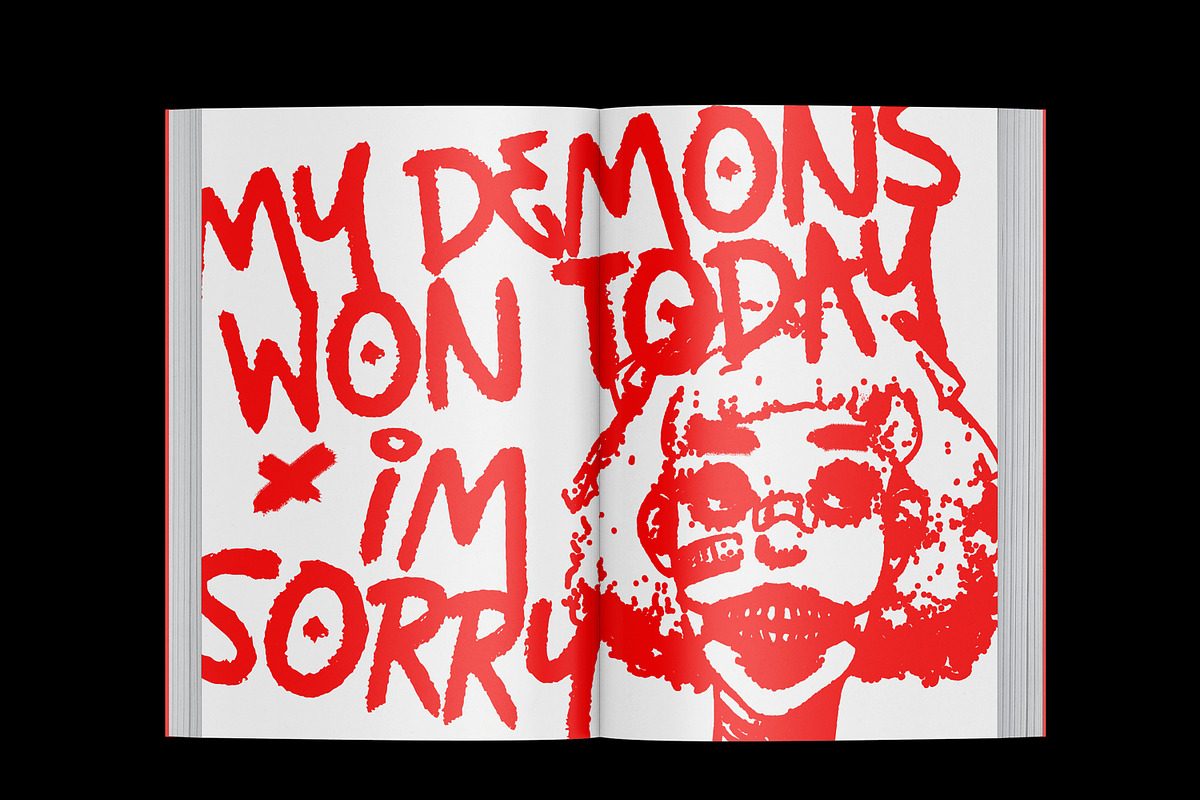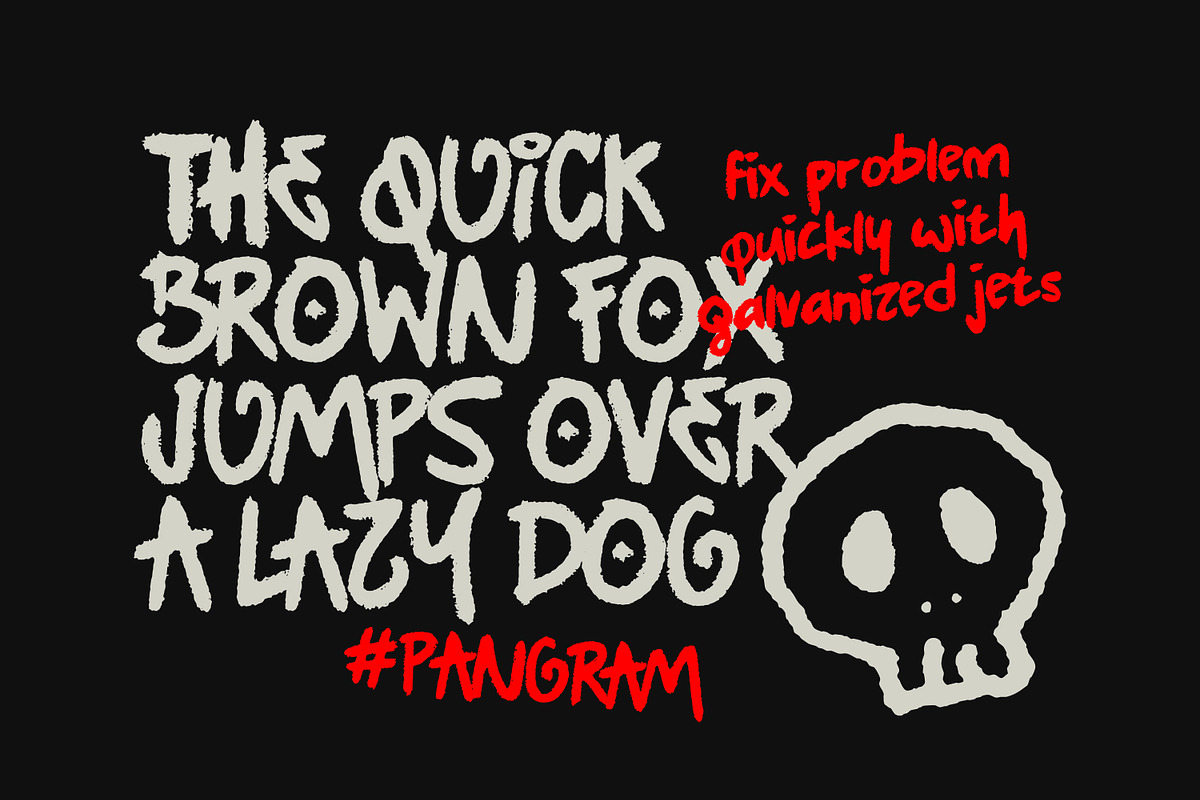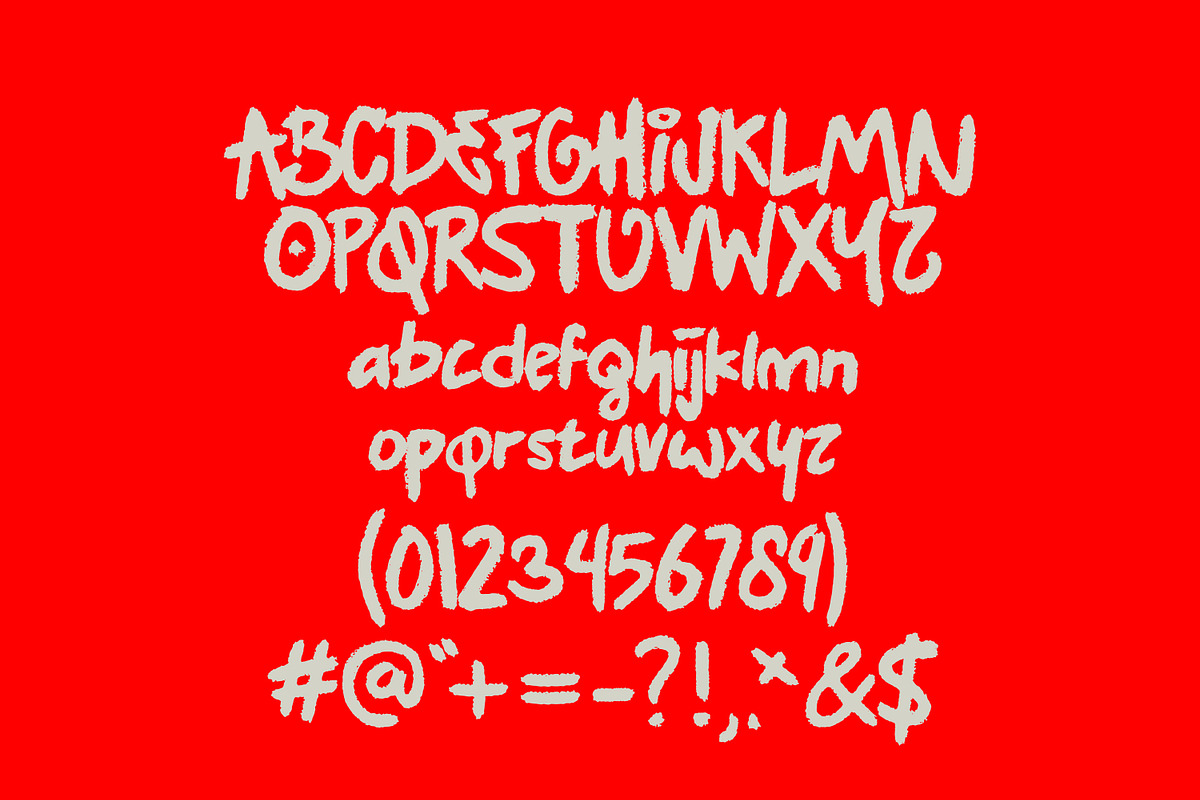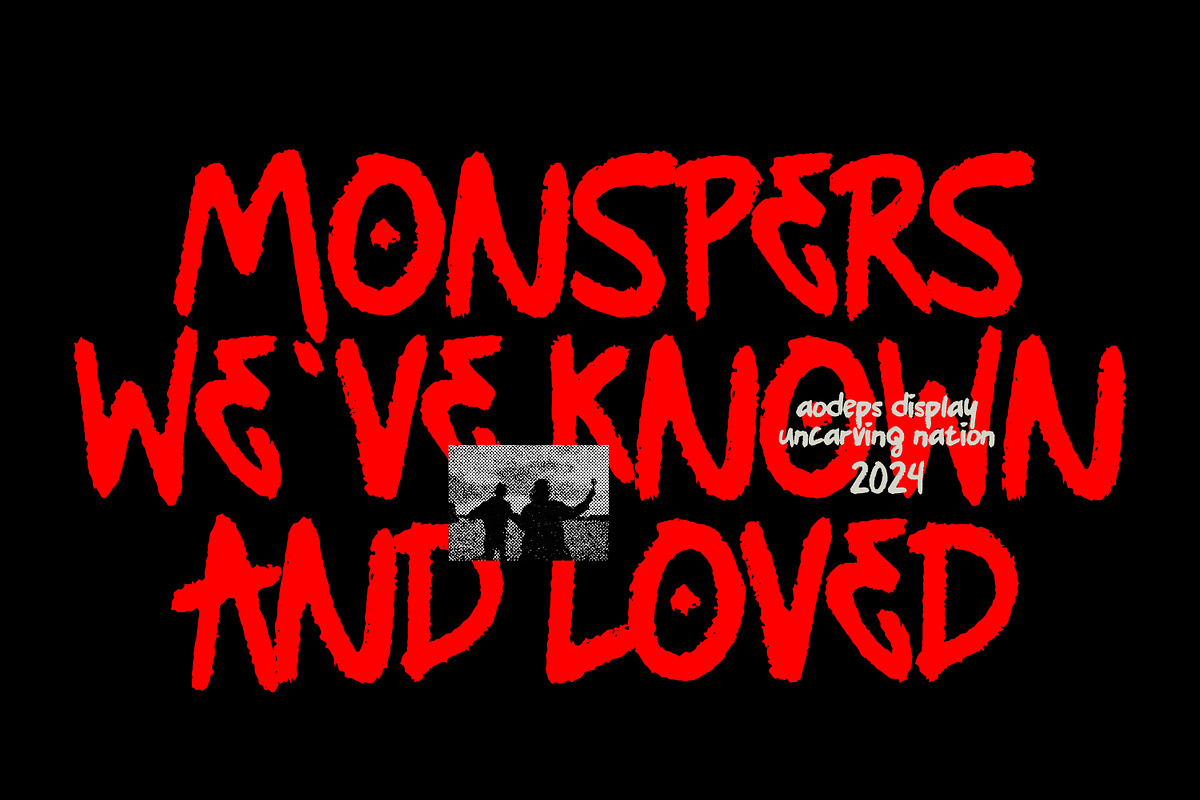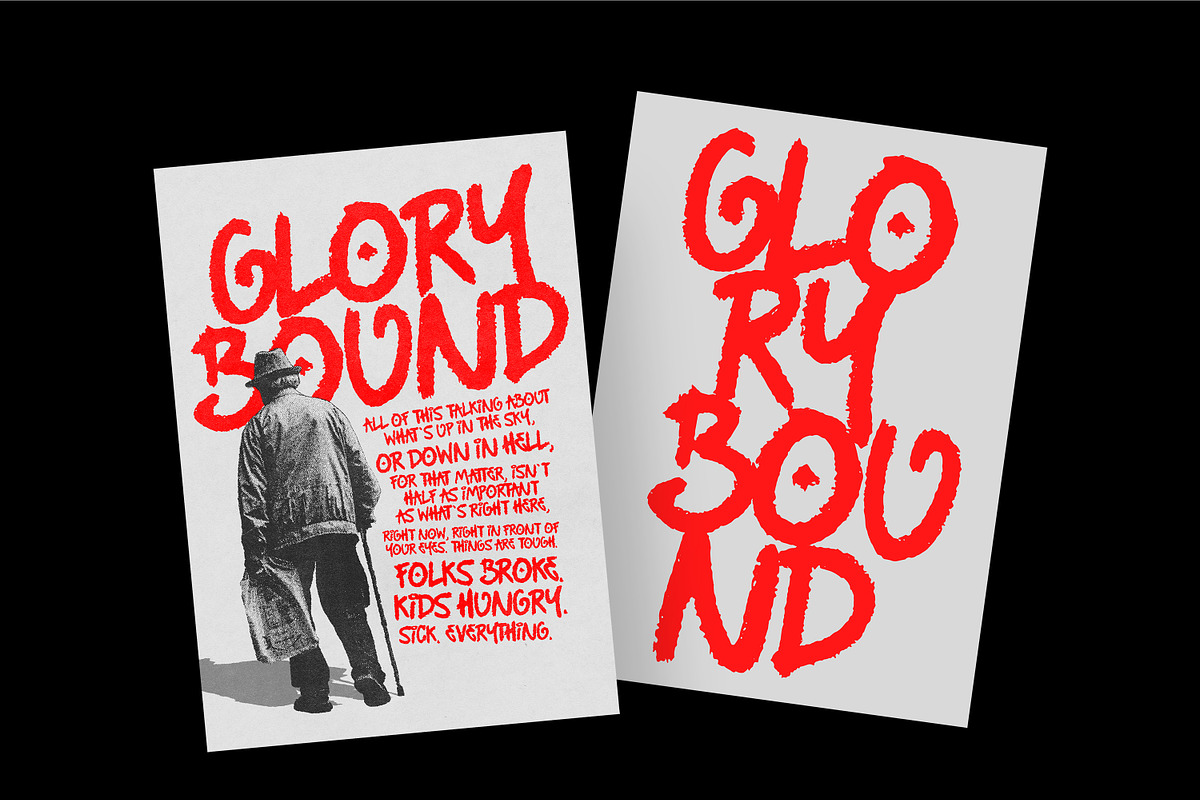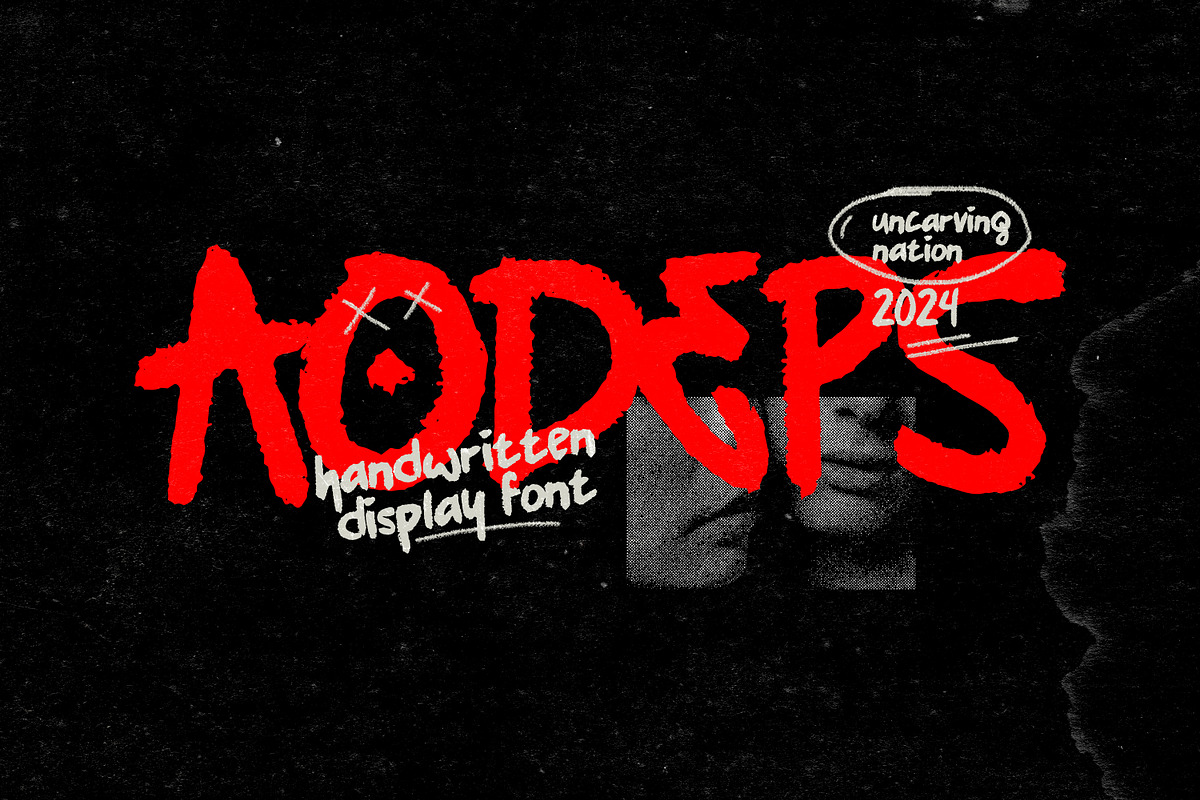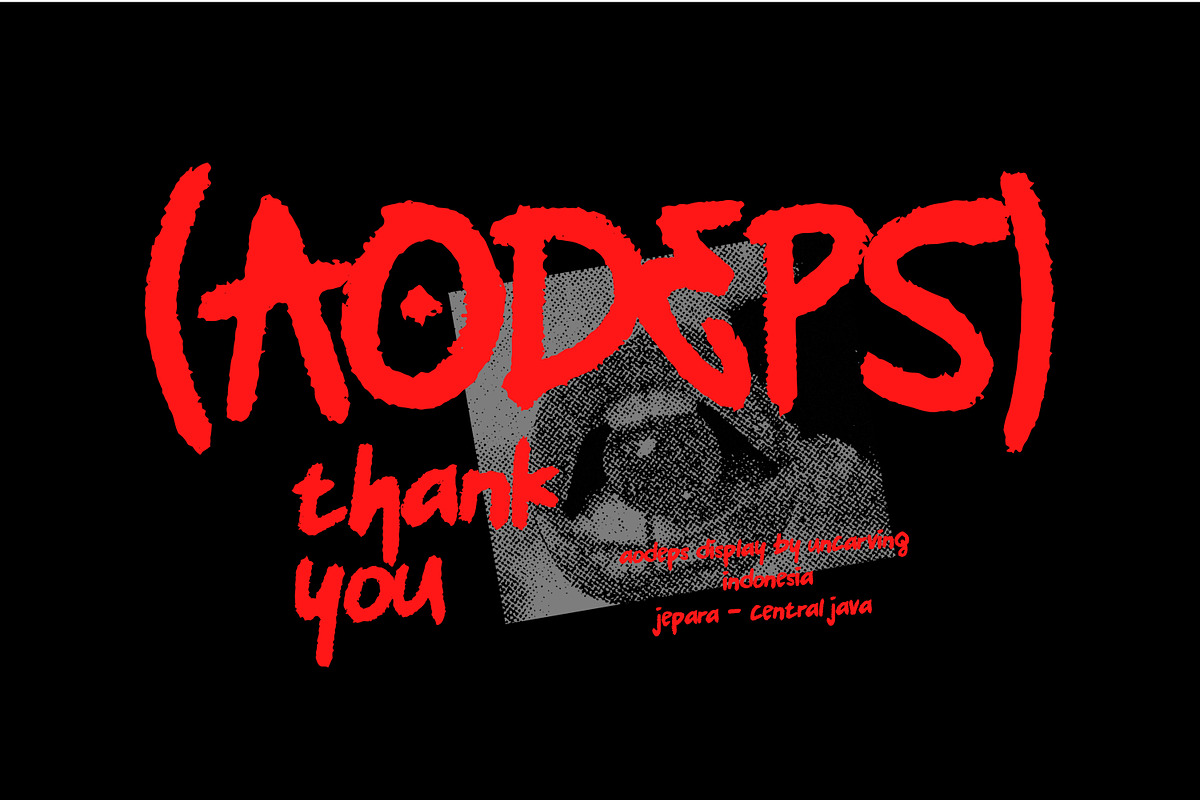
Aodeps - Display Font
About the Product "AODEPS" is a font designed by uncarving Inspired by handwritten and street culture keeping the simplicity and unique shapes Great for use in your projects related to street, pop punk, rebel, & much more!